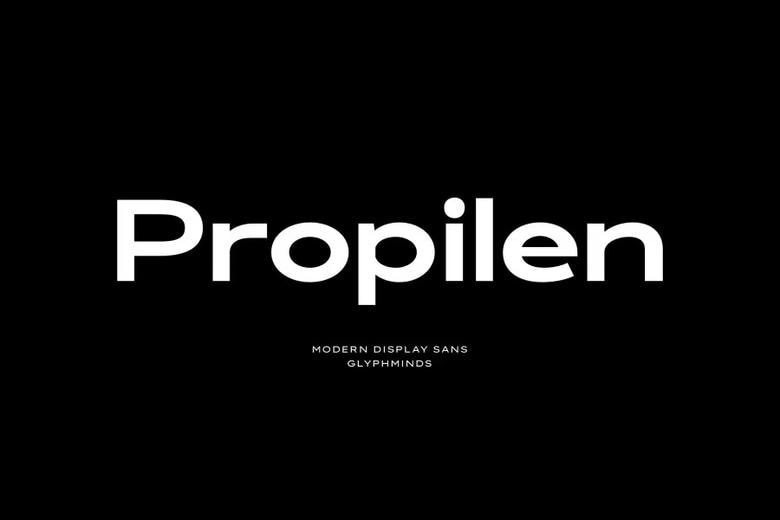
Propilen Font
Propilen is a geometric display sans-serif family designed to stand out. With 10 weights, from delicate Hairline to bold Black, it gives you a wide range of typographic options and works well in both digital and print projects.
Propilen has clean geometric curves, generous proportions, and is easy to read. It works well for building a strong brand, designing modern editorial layouts, or creating bold website headlines.